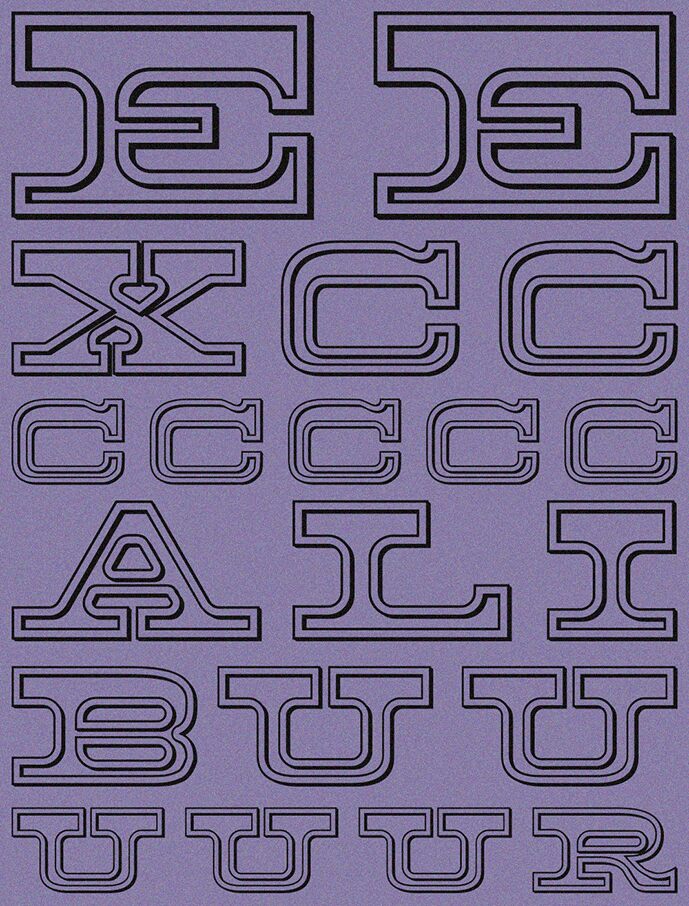
Excalibur Extravagant font by Vladimir Nikolic is a bold expanded typeface with historical influences perfect for Western style use. Its outer and inner contour sections have ornate decorative elements with intricate detailing that drives the attention of any reader.
This free display font can be used in poster designs, games, book covers, events invitations, and all types of advertising content. Whether visual or printed, it is guaranteed that your work will look unique!